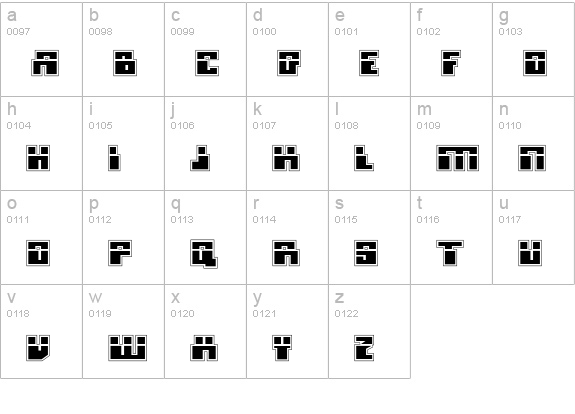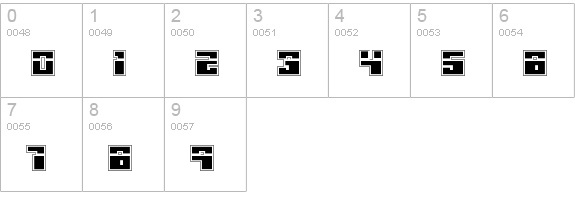
The Micronian Laser Academy font is a futuristic and sleek typeface designed to bring a touch of sci-fi elegance to your projects. Its sharp lines and geometric shapes make it perfect for conveying a sense of advanced technology and innovation. Whether you're working on a space-themed design or a high-tech branding project, this font will surely make a bold statement. The best part is that the Micronian Laser Academy font is available for free download at FontsMarket.com. You can easily access this cutting-edge typeface and add a touch of modernity to your designs without any cost. Embrace the future with Micronian Laser Academy font and let your creativity soar to new heights.